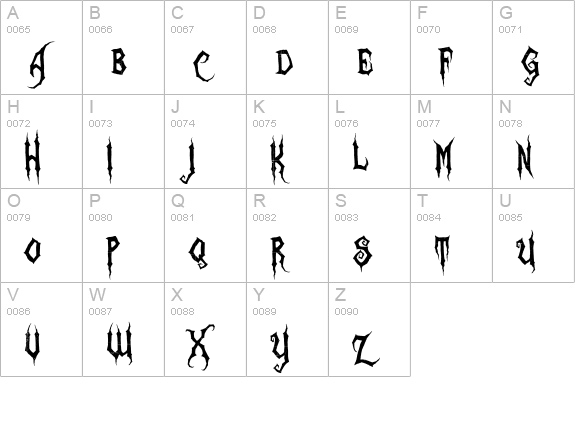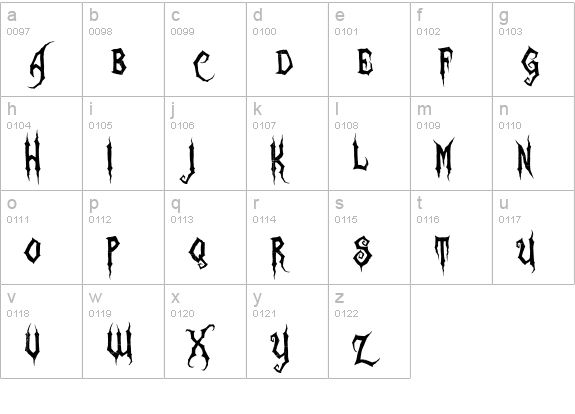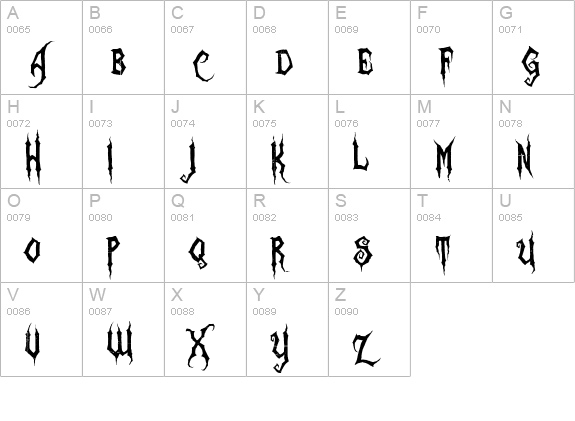
Zombie Holocaust Font Details
Zombie Holocaust font is a spine-chilling typeface that will send shivers down your spine. It is the perfect choice for any horror-themed project, Halloween party invitations, or any design that needs an eerie touch. Crafted with meticulous attention to detail, this font captures the essence of the zombie apocalypse, with its jagged edges and distressed appearance. What sets Zombie Holocaust font apart is not only its visually striking design but also its availability. This font is freely available to download at FontsMarket.com, making it accessible to designers and enthusiasts alike. Whether you're a professional graphic designer or someone who simply enjoys experimenting with typography, Zombie Holocaust font is a must-have addition to your font collection. The versatility of Zombie Holocaust font allows it to be used in various projects, from posters and book covers to website headers and social media graphics. Its unique and haunting appeal will instantly capture attention and add an extra layer of intrigue to your designs. With Zombie Holocaust font, you can easily create a chilling atmosphere that will leave a lasting impression on your audience. Its bold and impactful letters bring an added sense of urgency and danger, perfectly reflecting the chaos and terror of a zombie-infested world. If you're looking to unleash your creativity and embrace the macabre, Zombie Holocaust font is the ideal choice. Download it freely at FontsMarket.com and let your designs come to life with a touch of undead horror.